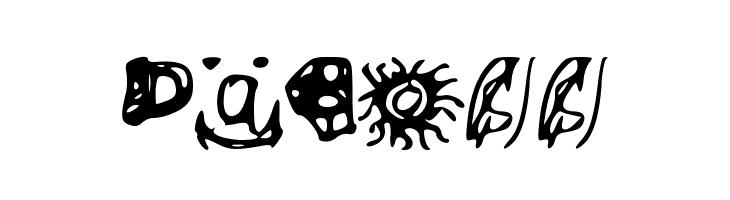
( Fonts by Peter Olexa )
A bold, distressed font with a gritty, urban aesthetic.
( Fonts by Peter Olexa )
A bold, distressed font with a rugged, grunge aesthetic.
A bold, angular font with sharp edges and a geometric style.
A bold, chaotic, and decorative font with an ink-splatter aesthetic.
An edgy, thorn-like font with sharp, irregular strokes.
A bold, distressed font with a grunge aesthetic and rugged appearance.
A bold, distressed font with a grunge aesthetic and rugged texture.
A gritty, distressed font with sharp, angular edges and a rebellious aesthetic.
A bold, distressed font with a rugged, industrial appearance.